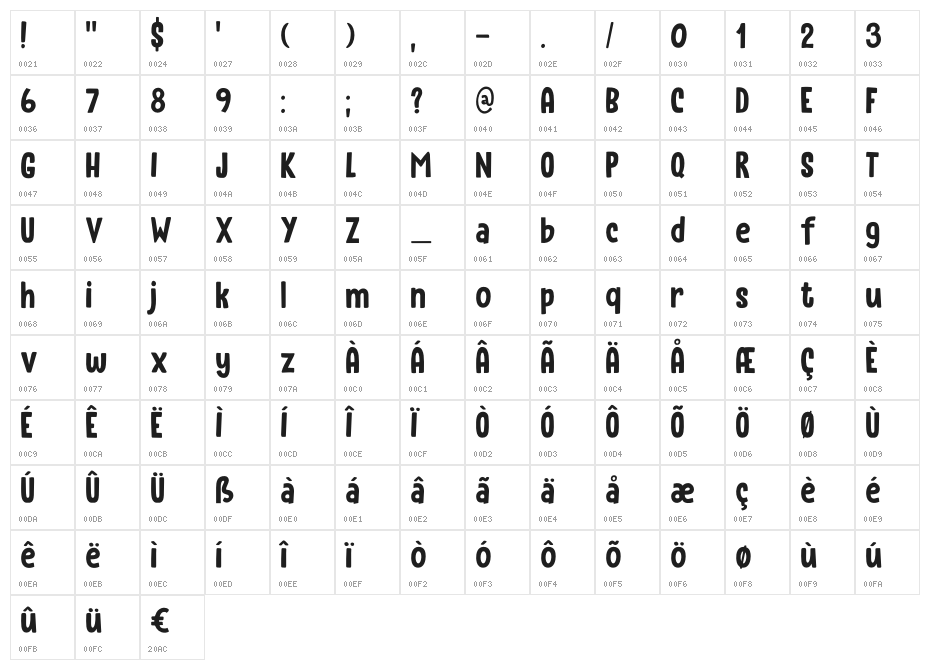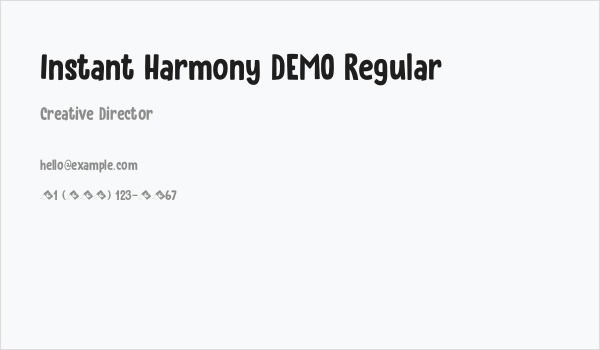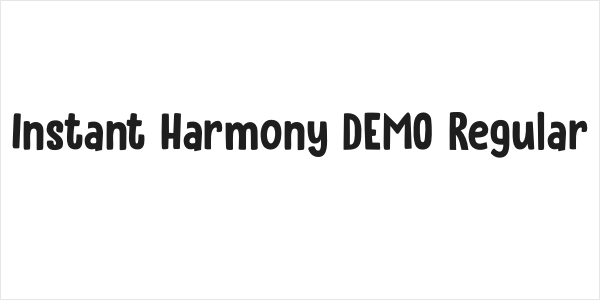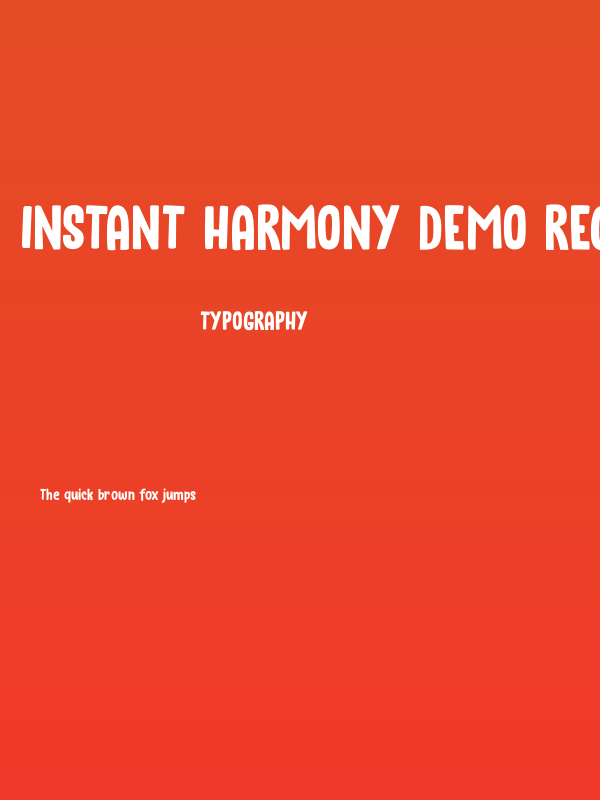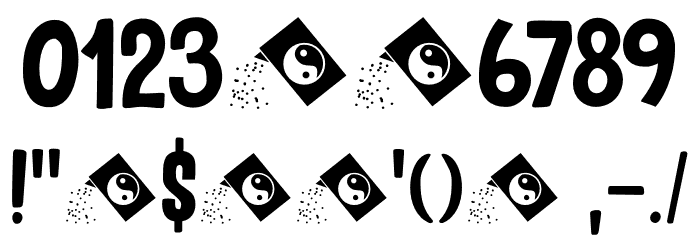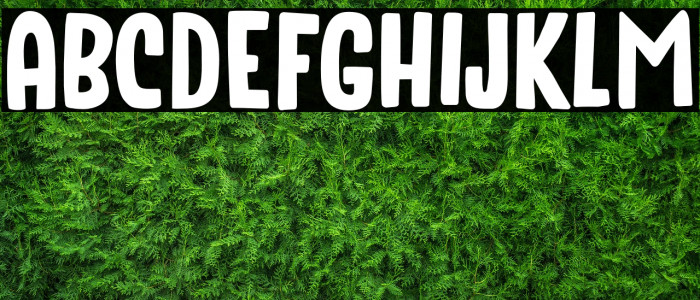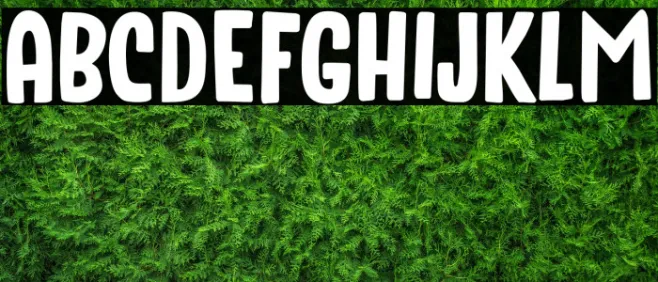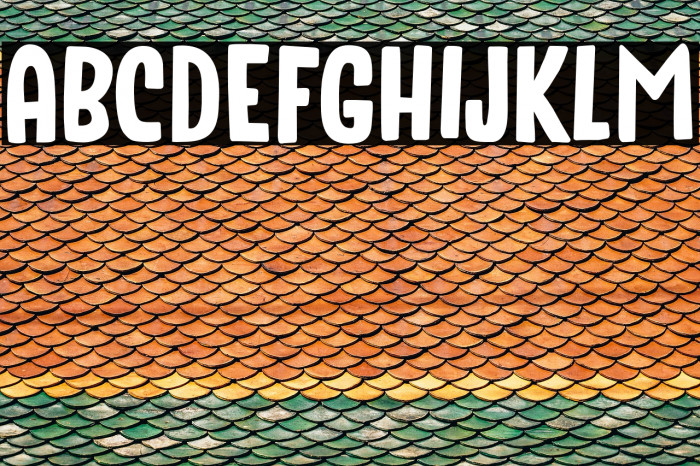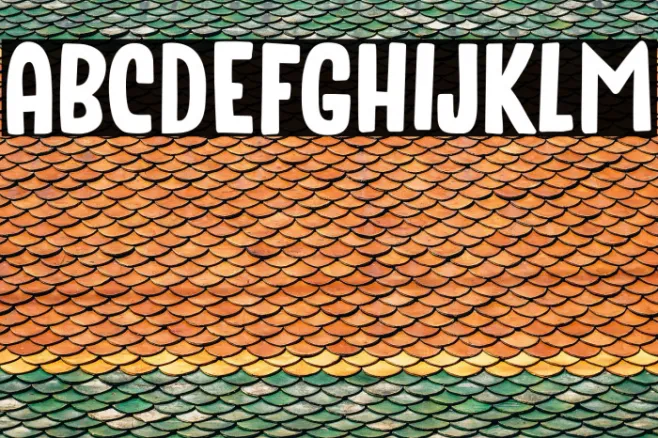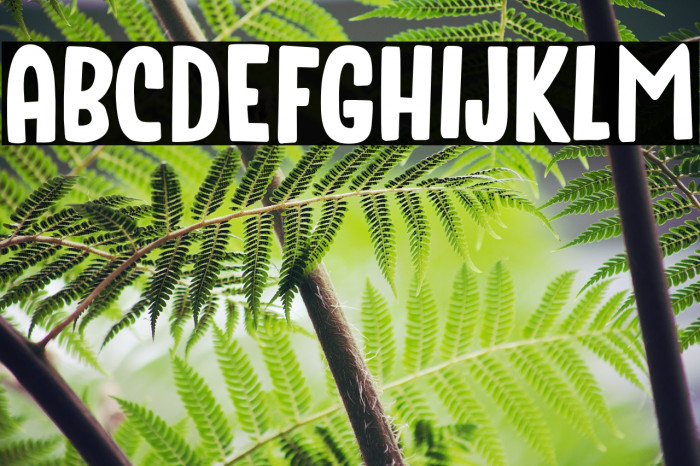
Instant Harmony DEMO Regular Font
Instant Harmony DEMO Regular Description
This font features a playful and bold design with rounded edges and a slightly whimsical style. The characters are thick and have a consistent weight, giving them a strong presence on the page. The uppercase and lowercase letters maintain a uniform height, contributing to a cohesive look. The numbers and special characters are designed with the same playful aesthetic, making them stand out. The font's unique style is further emphasized by the inclusion of decorative elements within some characters, adding a touch of creativity and fun.
| Overall Style | Playful, Decorative |
| Proposed Projects | Ideal for children's books, playful branding, posters, and creative projects that require a fun and engaging typeface. |